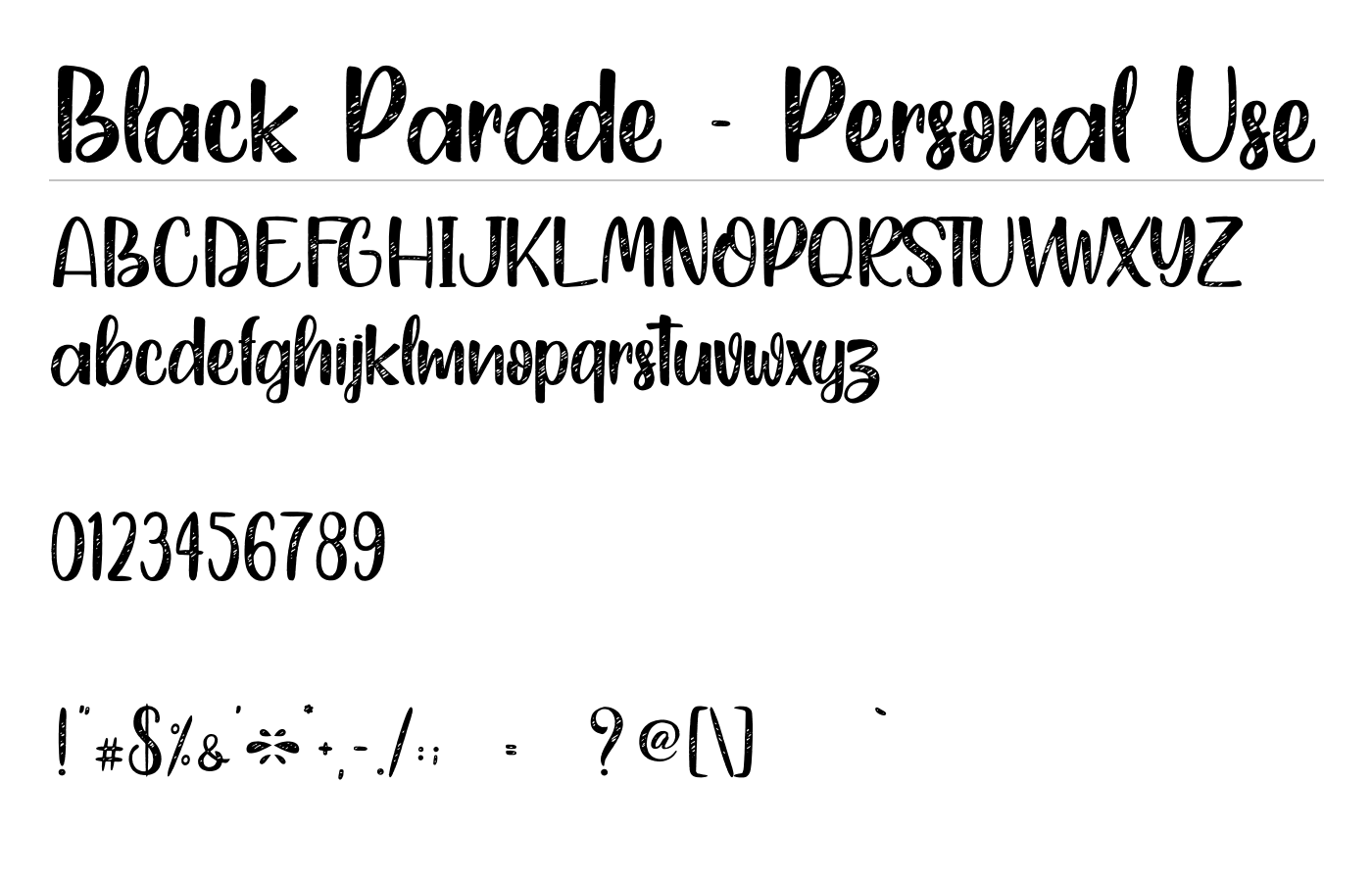
Black Parade is a playful, hand-drawn script font with a casual, textured style that adds a personal, artistic touch to any design. Its tall, narrow letterforms combined with irregular strokes give it an energetic and approachable feel, making it ideal for creative projects, informal branding, and fun print or digital headlines. This font works particularly well where a friendly, handmade vibe is desired to engage audiences in a lively, authentic way.
Black Parade - Personal Use Font
About Black Parade - Personal Use Font
| Font family | Black Parade - Personal Use Font |
| Designer | Typhoon Type - Suthi Srisopha |